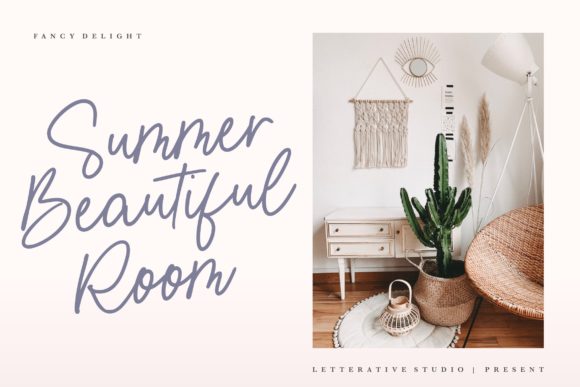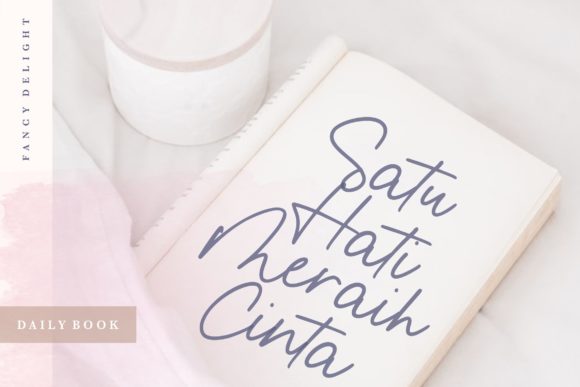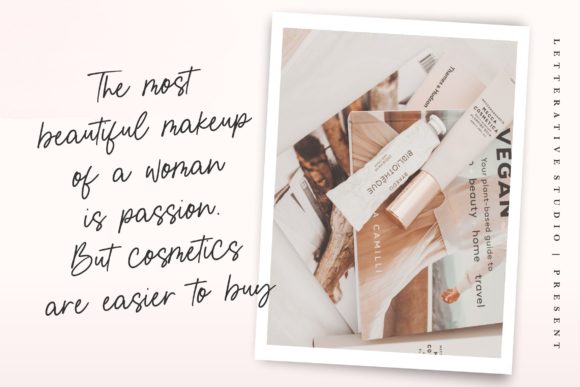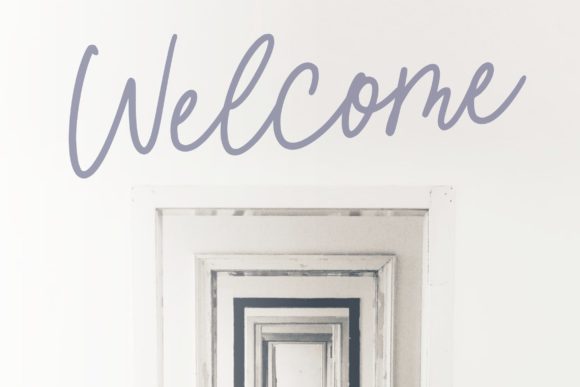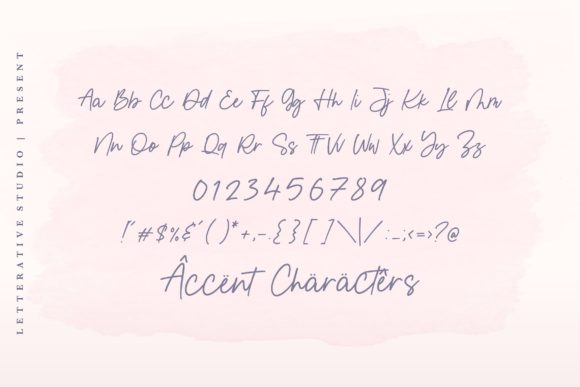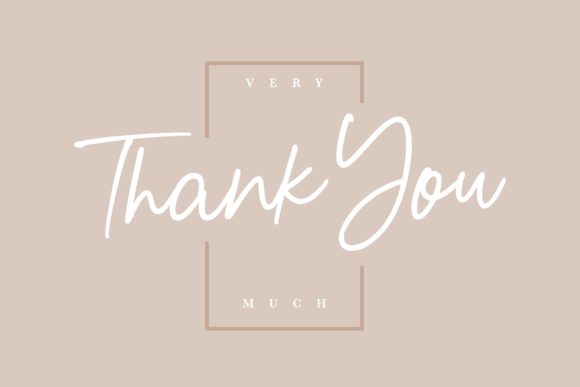
Unleash Your Inner Romantic: The Magic of Fancy Delight Font
There’s nothing quite like the thrill of brainstorming a new design concept. You’re sipping your morning coffee, surrounded by scribbled notes and half-finished sketches, when suddenly it hits you – the perfect idea. The key to bringing this vision to life lies not just in your creativity, but also in the right tools. That’s where Fancy Delight Font comes in, adding a touch of whimsy and romance to your designs.
This charming handwritten font is more than just a pretty face; it’s a game-changer for designers looking to add a personal touch to their work. With Fancy Delight Font, you can infuse your designs with a sense of nostalgia and elegance, making them truly unforgettable. Whether you’re crafting wedding invitations, designing a new logo, or creating a social media campaign, this font is sure to elevate your work and leave a lasting impression.
- Font Family: Fancy Delight Font is a premium font family that includes 6 styles: Light, Regular, Medium, Bold, Italic, and Bold Italic.
- Character Set: The font family includes a comprehensive character set, covering Latin, Cyrillic, and Greek alphabets, as well as various punctuation marks and symbols.
- Unique Characteristics: The Fancy Delight Font features elegant, cursive script with intricate flourishes, making it perfect for creating beautiful, handwritten-style designs.
Fancy Delight Font Review
I recently had the chance to work with the Fancy Delight Font, and I must say it’s a unique and eye-catching option. ✨ One of the things that stood out to me was the high level of customization available. You can adjust the font’s size, color, and even add custom effects to really make it pop.
Another thing I appreciated was the wide range of languages supported by the font. ✨ It’s not often that you come across a font that can handle everything from English to Chinese, but Fancy Delight has got you covered.
While Fancy Delight is a solid choice, there are a few limitations to be aware of. ⚠️ One of the main issues is the font’s weight. While it’s perfect for headings and titles, it can get a bit too light for body text.
Another thing to keep in mind is that the font may not be suitable for all audiences. The design is quite playful and may not be suitable for more formal or professional projects.
Overall, I’d say Fancy Delight is a great choice for anyone looking to add a touch of elegance and whimsy to their project. With its high level of customization and wide language support, it’s a versatile option that’s sure to impress.
- High level of customization available
- Wide range of languages supported
- Unique and eye-catching design
- Perfect for headings and titles
Getting the Most Out of Fancy Delight Font
To get the most out of Fancy Delight Font, use it to add a touch of elegance to your designs. Try pairing it with other elegant fonts for a sophisticated look.
Fancy Delight Font is commonly used for:
- Formal event invitations
- Luxury brand logos and packaging